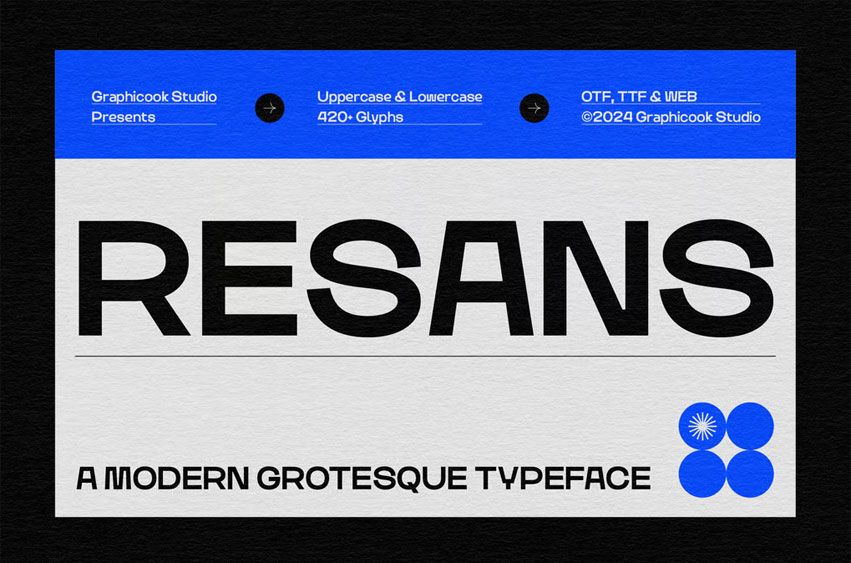
Resans Font Typeface—a modern grotesque font crafted with versatility in mind, making it suitable for a wide range of projects.
Resans is perfect for headlines, logotypes, magazines, packaging, quotes, movies, games, cover albums, book covers, and flyers, it’s a perfect solution for creating eye-catching designs that stand out in any context.